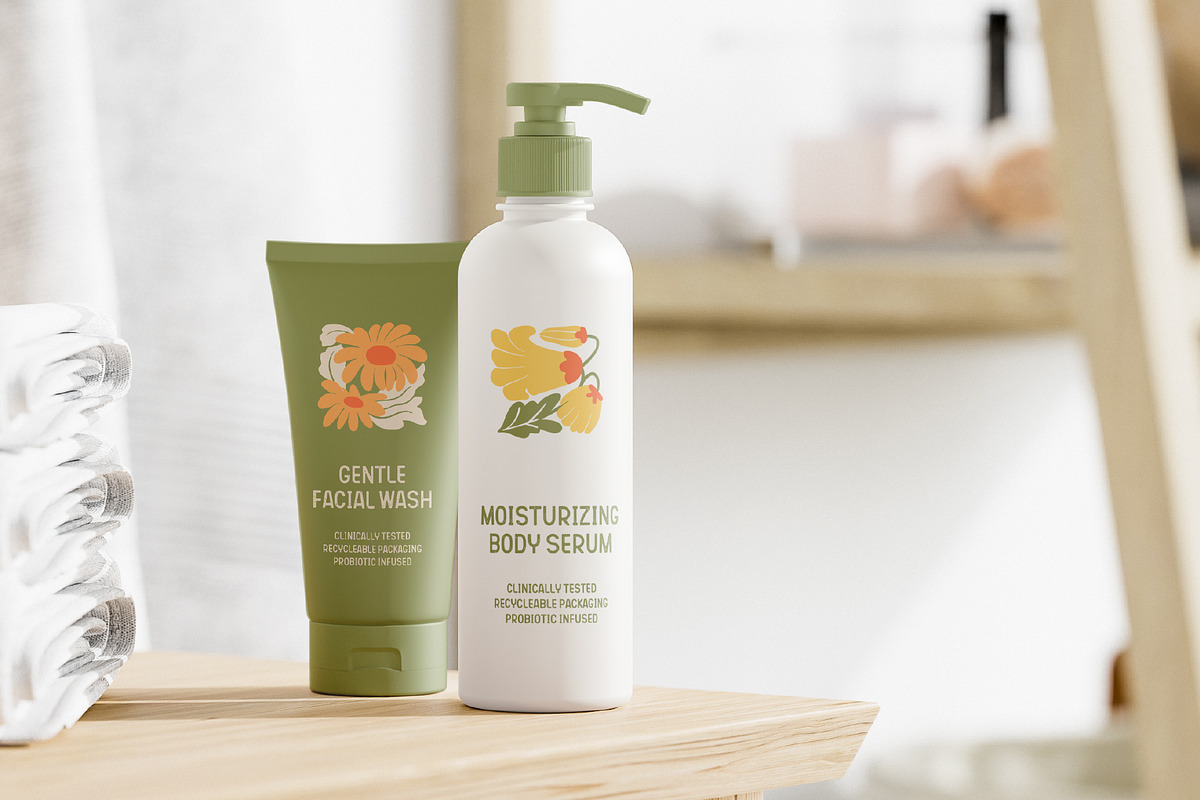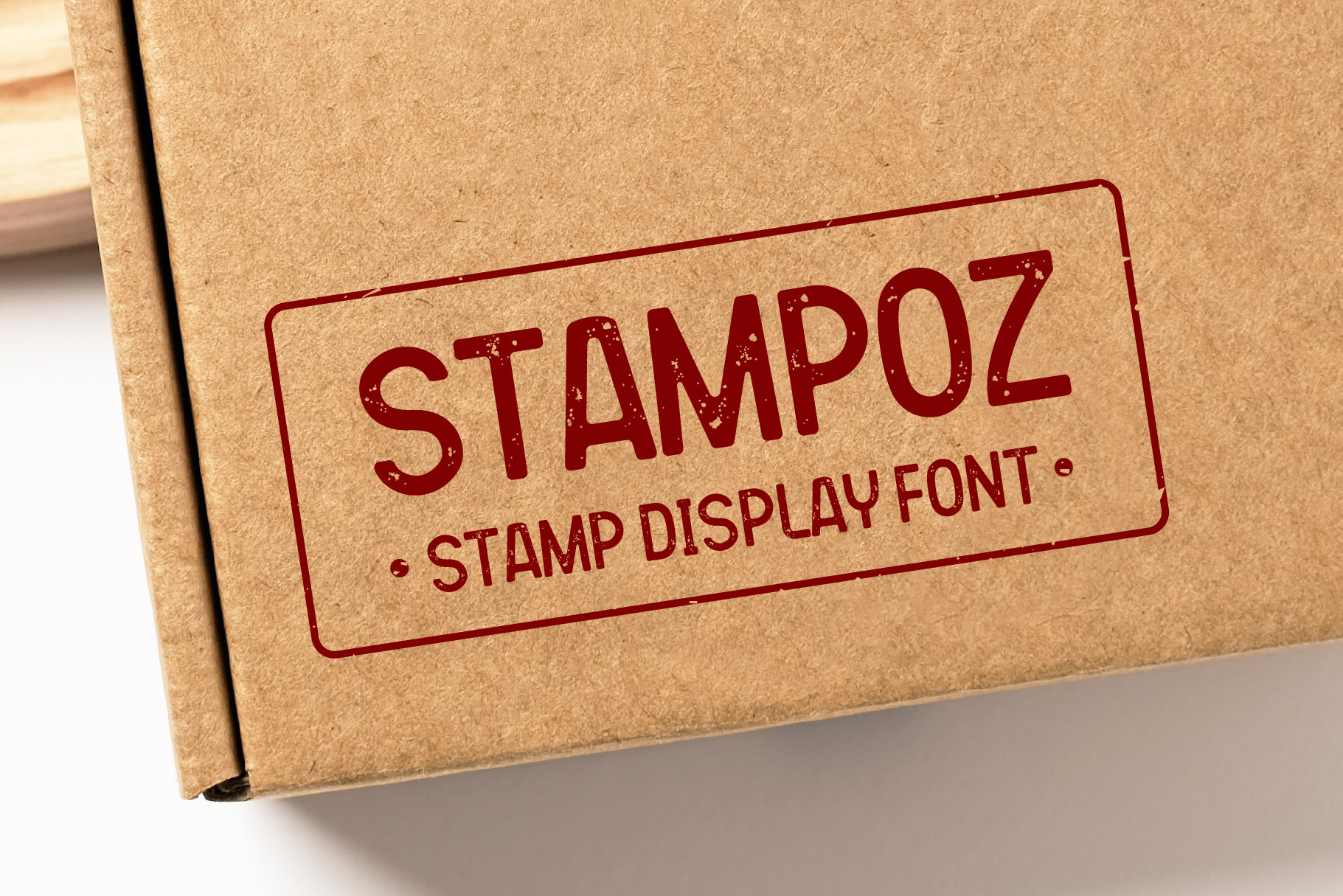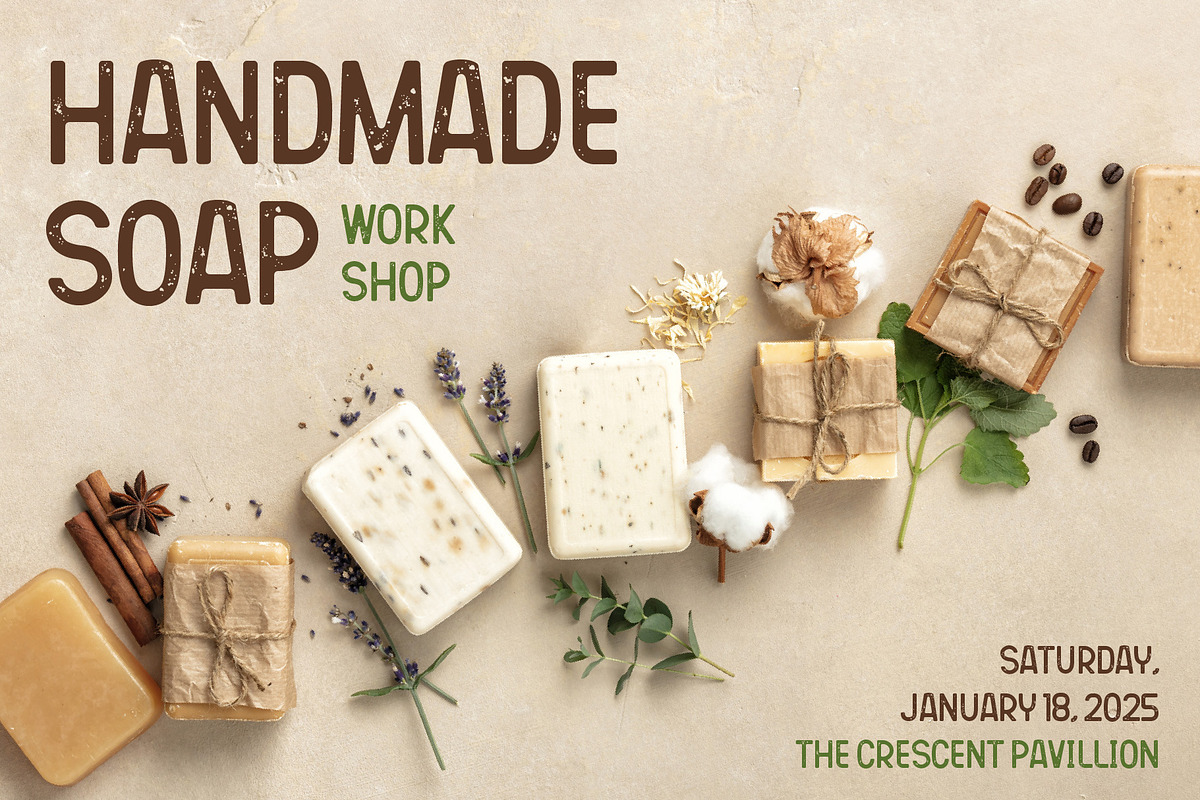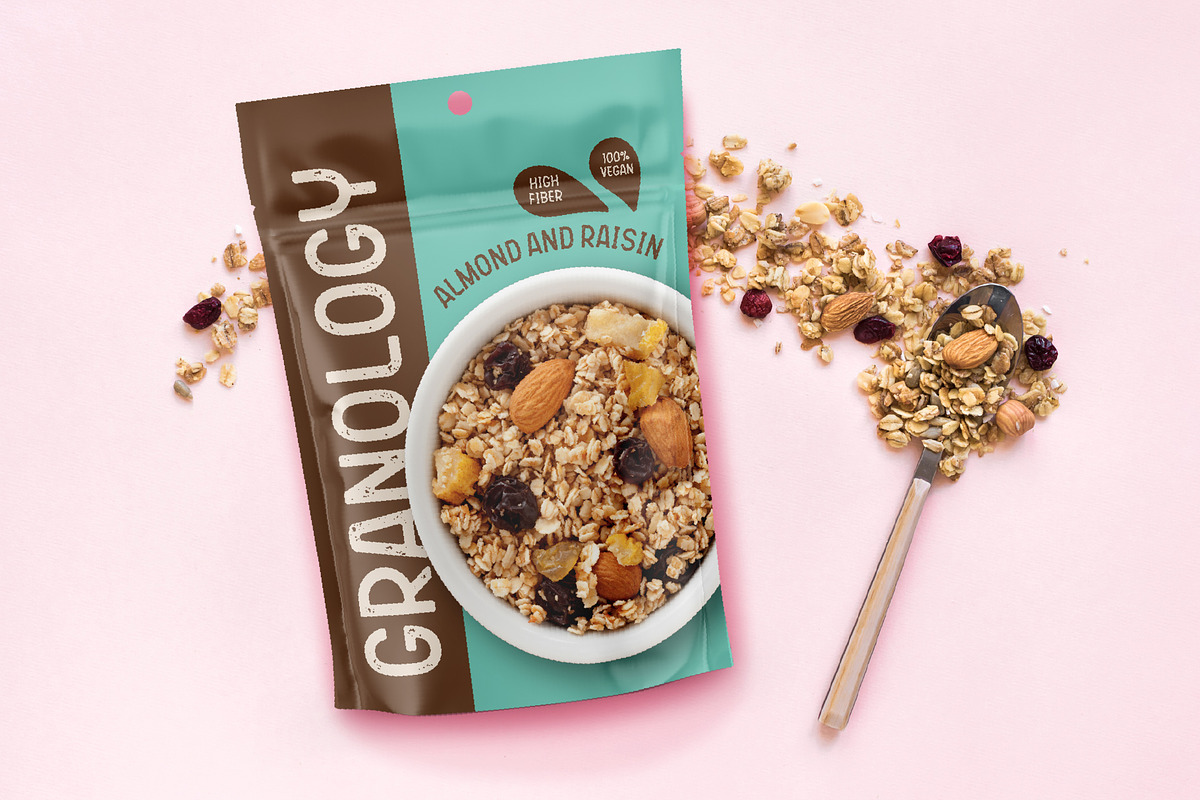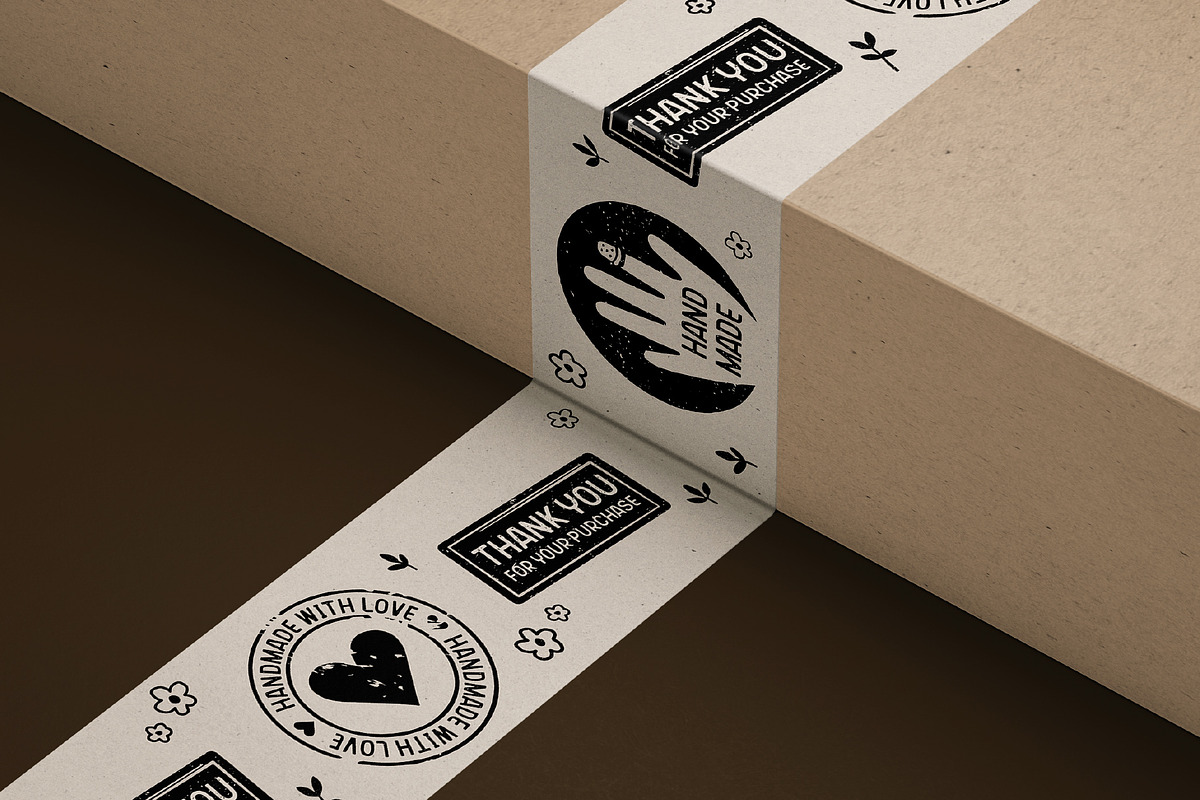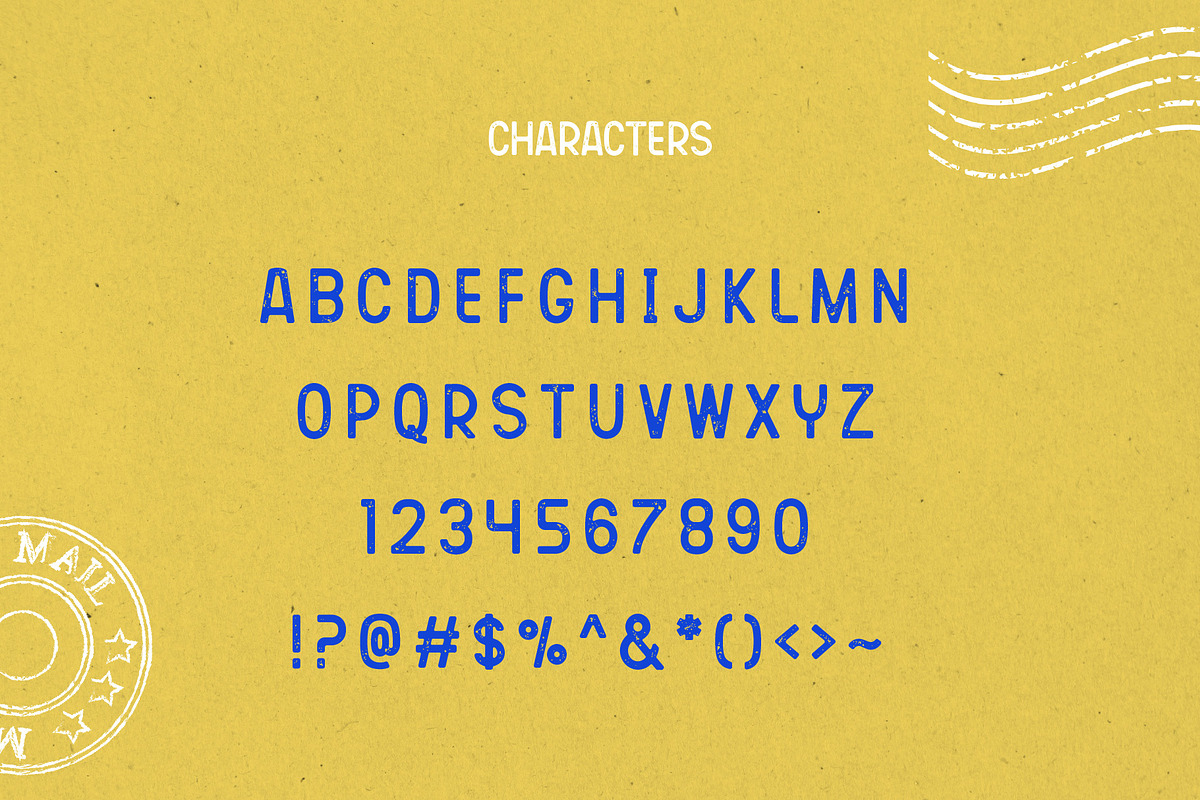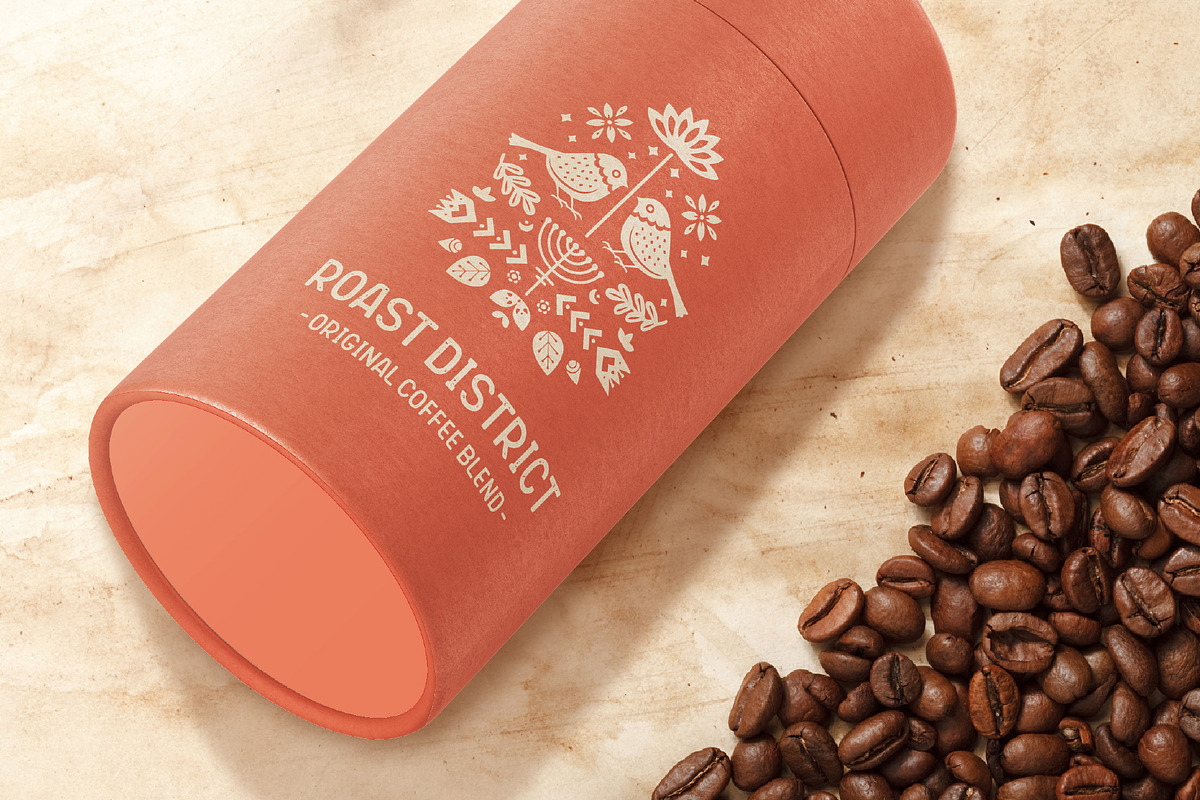
Stampoz Handcrafted Display Font
Stampoz is a handcrafted display font that captures the raw energy of a stamped impression. With bold forms and rugged textures, it carries the grit and authenticity of ink pressed onto paper. Every letter feels tactile and deliberate, giving your design the character of something made by hand.
Whether you’re crafting bold headlines, standout packaging, or graphics that demand attention, Stampoz brings a striking mix of strength and artisanal charm.
Designed to stand out, Stampoz fits seamlessly into both contemporary branding and retro-inspired settings. Its handcrafted imperfection is what makes it unforgettable.
- Packaging Labels & Product Stamps
- Bold Editorial Headlines
- Handmade & Craft Branding
- Posters & Event Flyers
- Lifestyle Merchandise Design
- Vintage-Inspired Graphics
- Social Media with Attitude